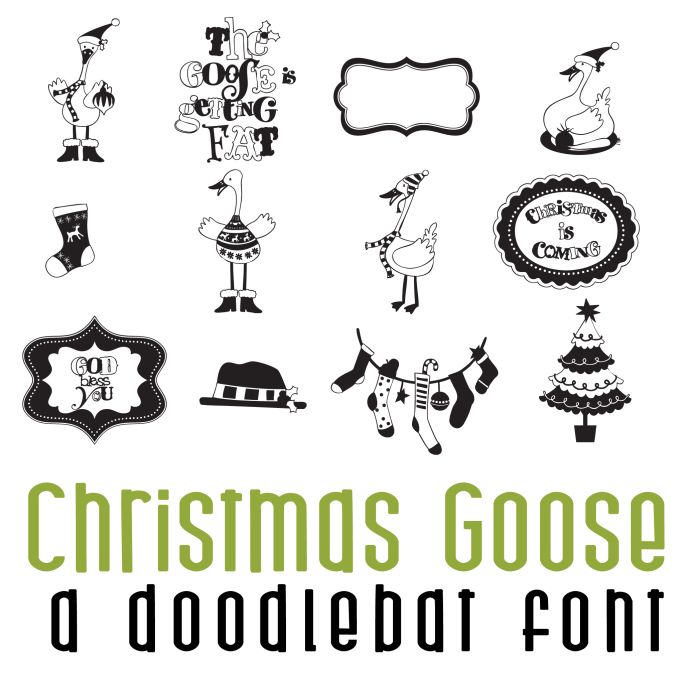
Christmas Goose Doodlebat Font
This fun doodlebat font features 26 Christmas Geese and imagery. Perfect for cards, crafts, gifts, decor, scrap book pages, planner stickers and more!